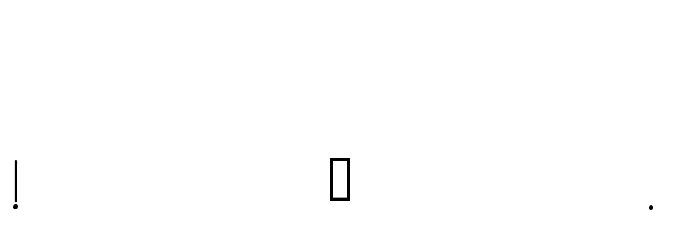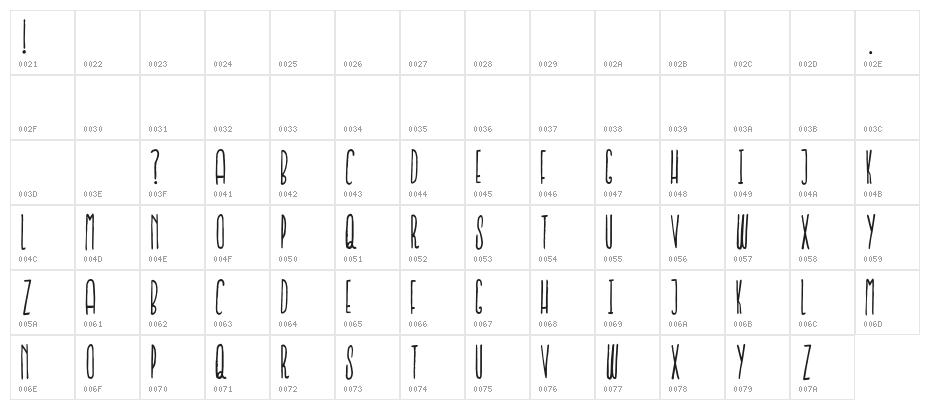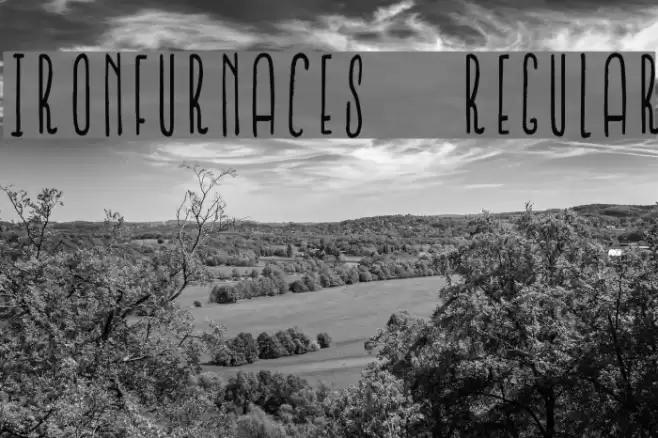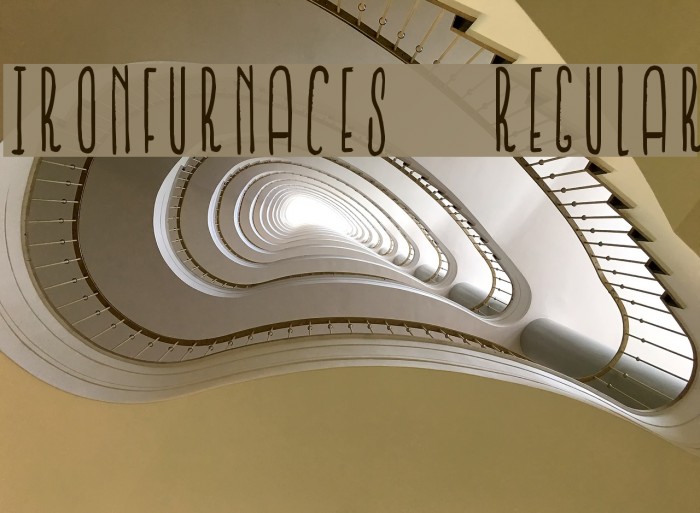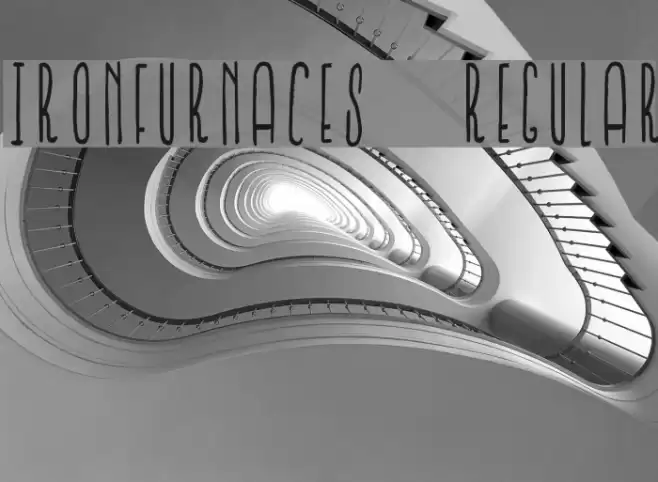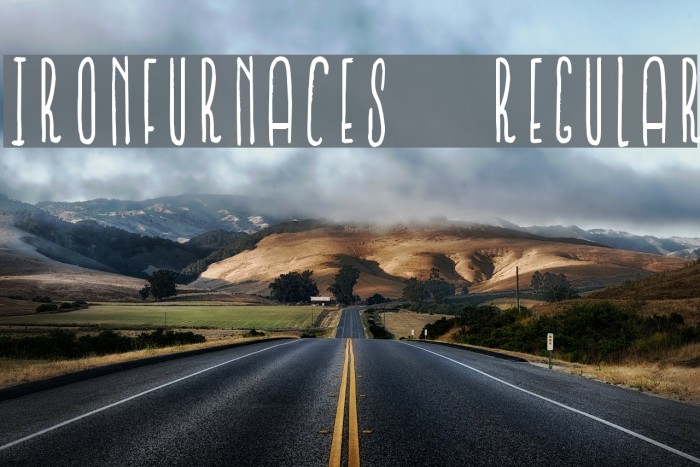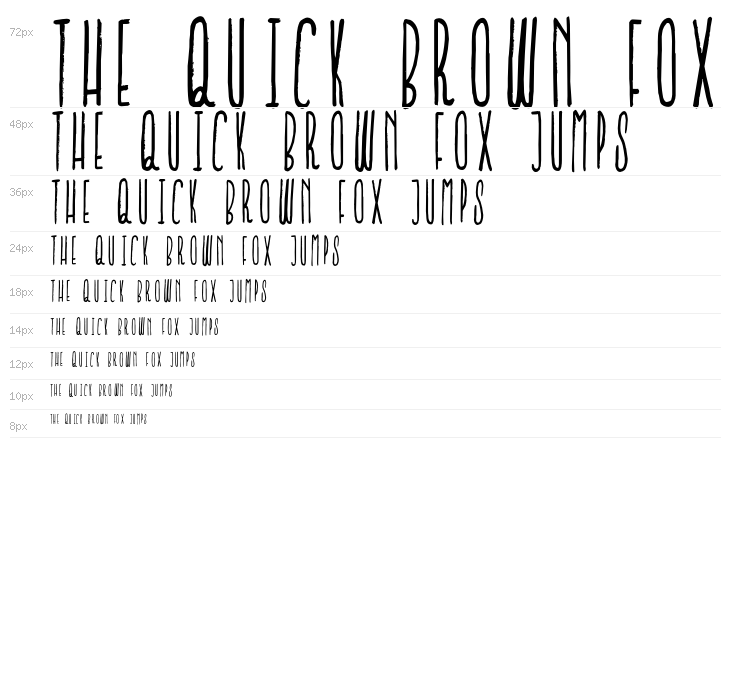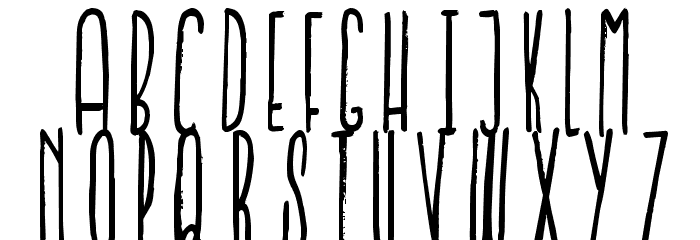
IronFurnaces-Regular Font
IronFurnaces-Regular Description
This font features a tall, narrow design with a distinctly industrial and vintage feel. The characters are elongated with a slight unevenness, giving them a hand-crafted appearance. The strokes are mostly uniform in width, but some letters exhibit subtle variations, adding to the rustic charm. The uppercase letters are particularly striking with their vertical emphasis, while the lowercase letters maintain the same height, creating a cohesive look. The numbers and special characters follow the same stylistic cues, ensuring consistency throughout the typeface.
| Proposed Projects | Ideal for branding projects, posters, and signage that require a vintage or industrial touch. |